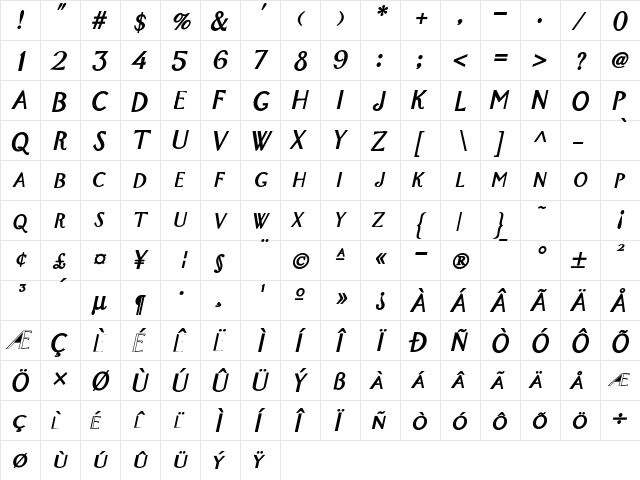
CadizSCapsSSK BoldItalic Font Preview
CadizSCapsSSK BoldItalic
Design Context for CadizSCapsSSK Typeface
CadizSCapsSSK is a composed and adaptable typeface that performs quietly and consistently across a wide range of design contexts. The dynamic lean of this cut emphasises speed and emphasis in any layout. Its bold stroke weight gives it real presence on the page.